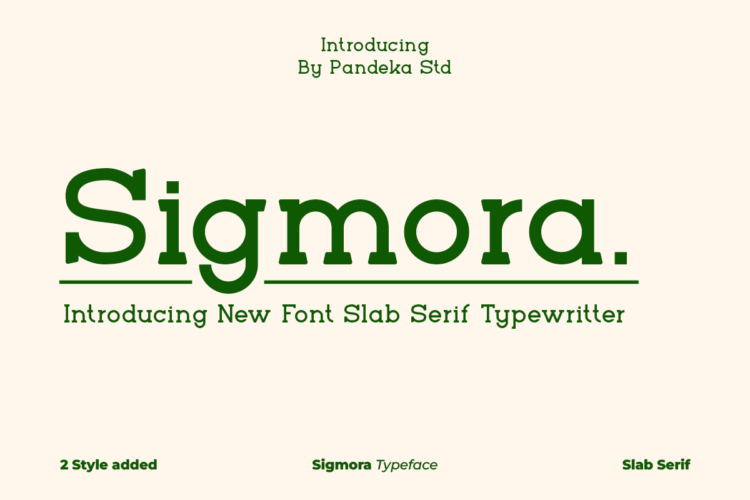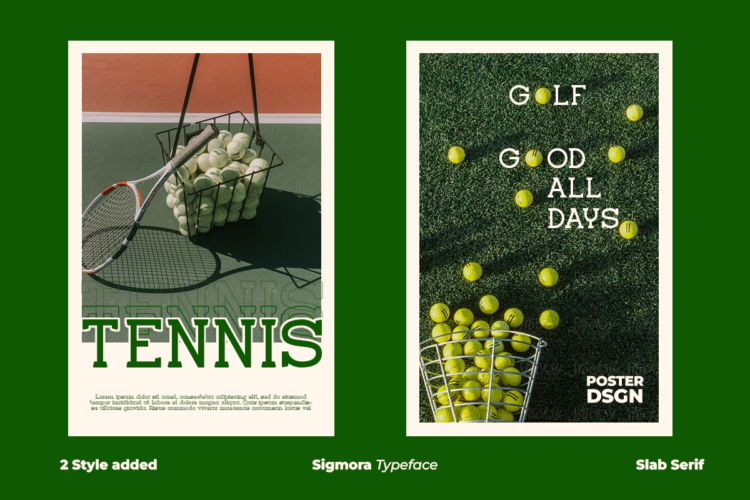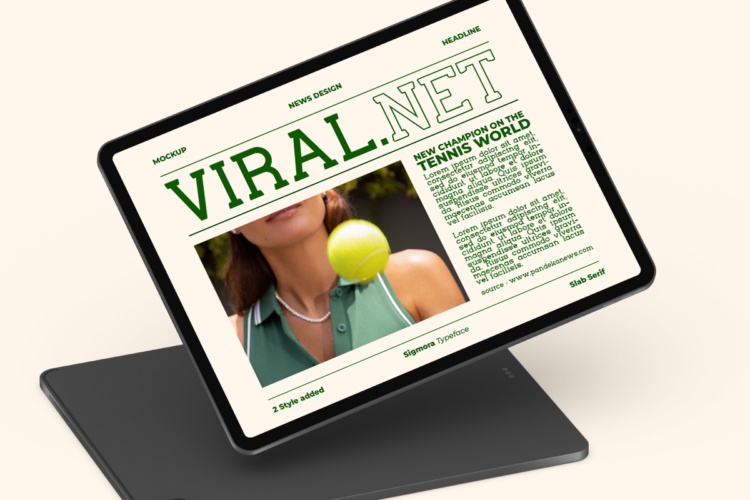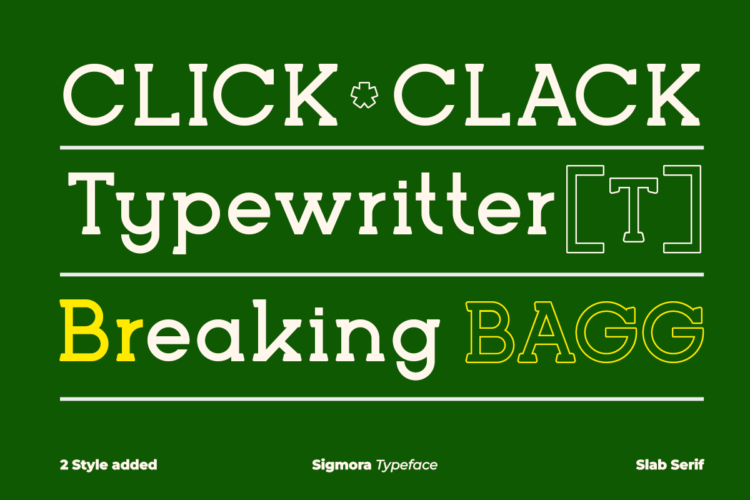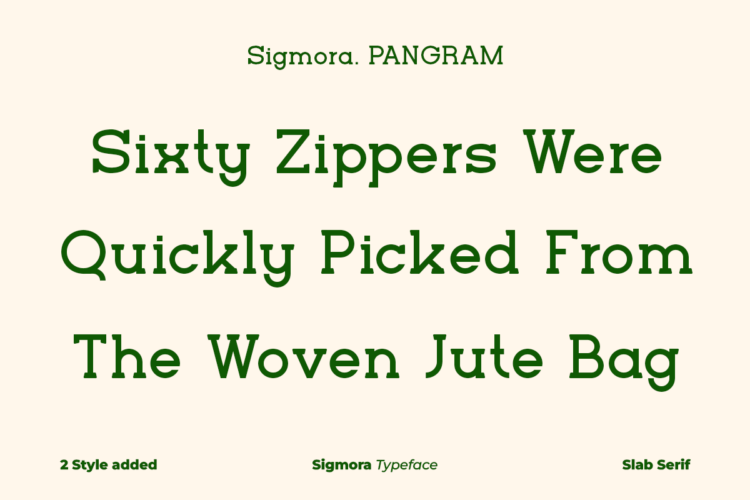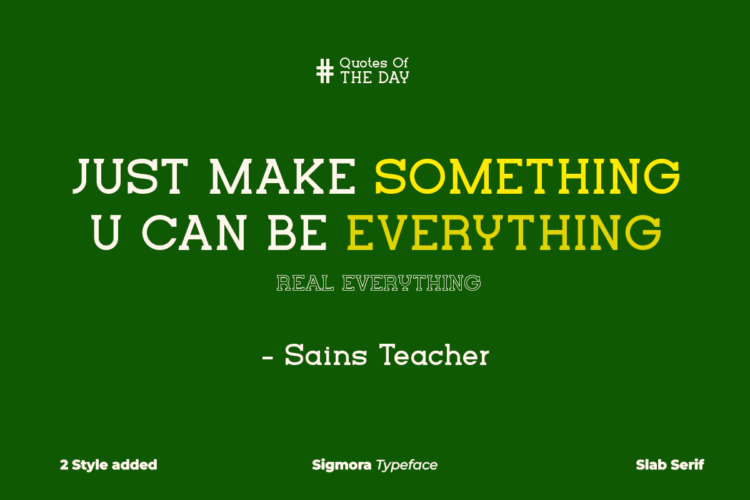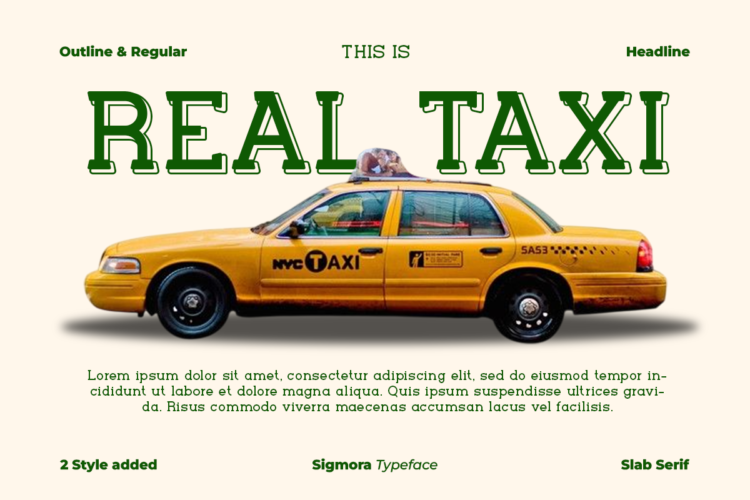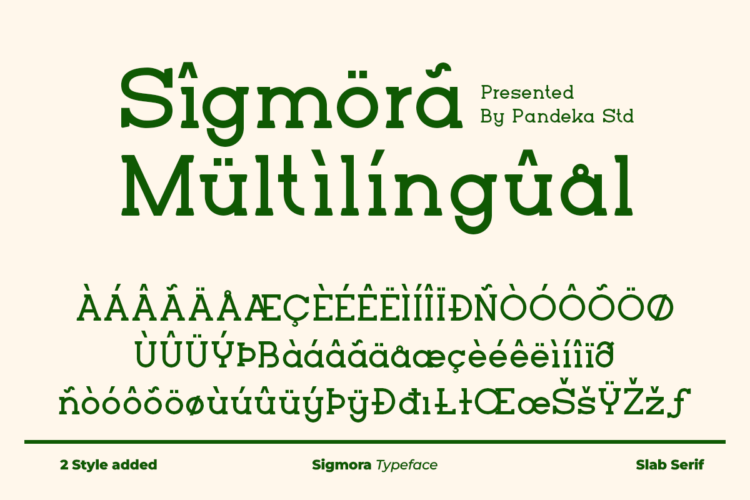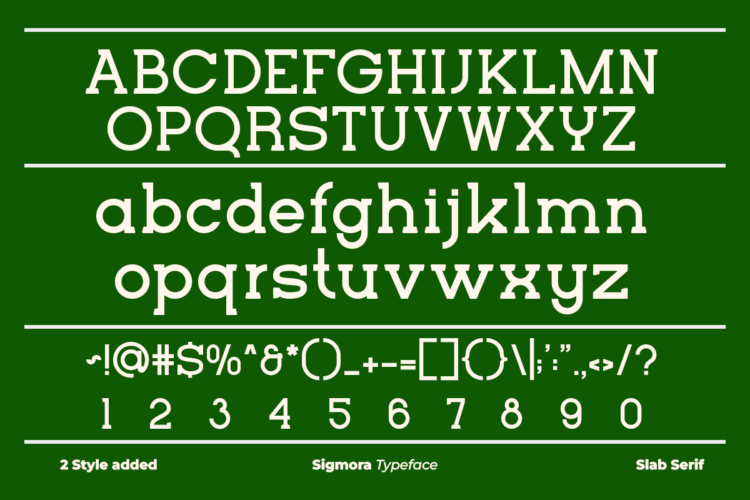
Sigmora Regular
Sigmora Outline
Say Hello to Sigmora – A Friendly Typewriter Slab Serif Font
Introducing Sigmora, a delightful typewriter-style slab serif font that combines vintage charm with a modern twist. Perfectly suited for projects that need a bold yet friendly look, Sigmora is ideal for branding, posters, book covers, logos, and more!
Sigmora comes with 2 versatile styles – Regular and Outline – giving you flexibility to mix and match for eye-catching designs. Whether you want a clean, solid feel or a more stylish outlined look, Sigmora has you covered!
• 2 Styles: Regular and Outline
Sigmora – Typewritter Slab Serif